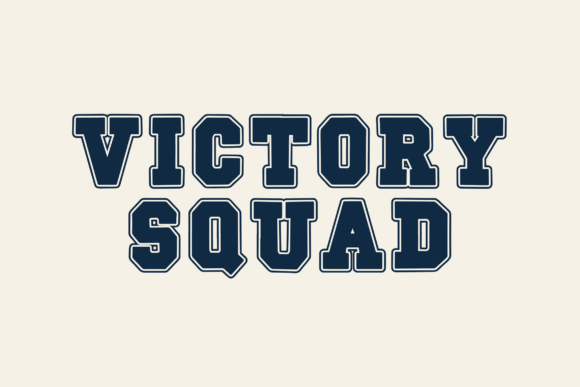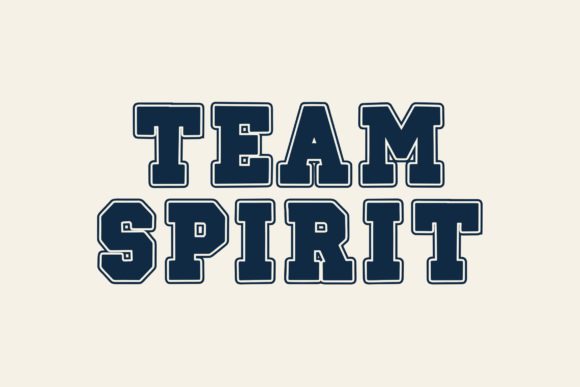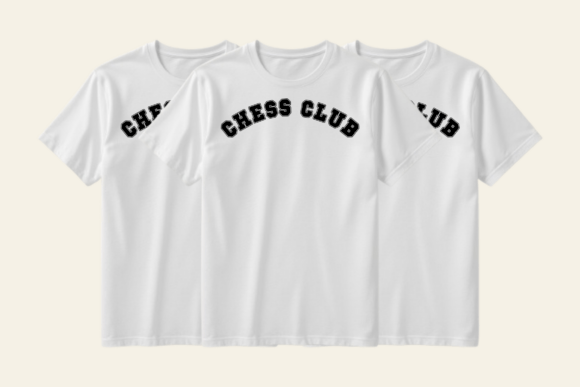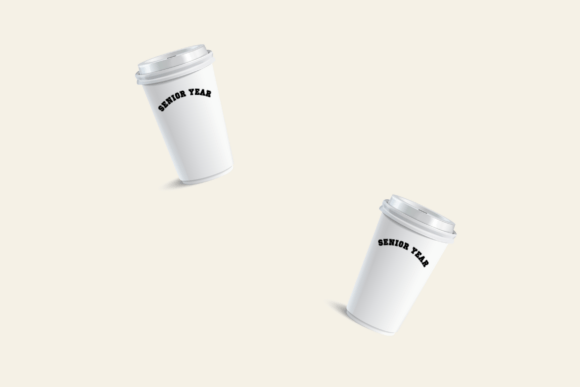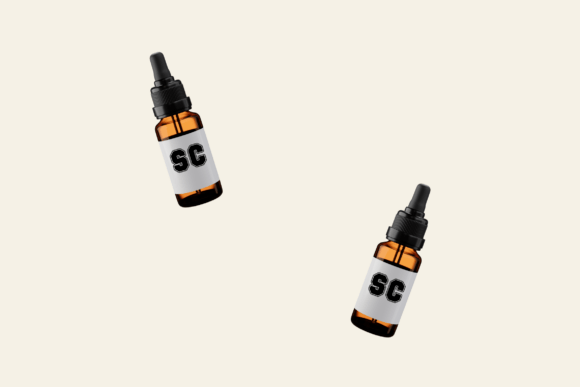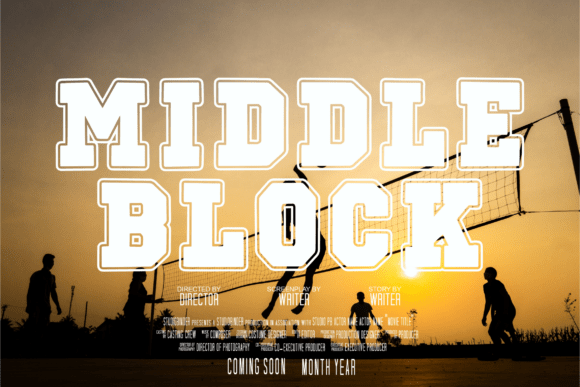
The Power of Blockton Varsity: A Bold and Versatile Font for Designers
I’ll never forget the time I was working on a project for a local school’s sports team, and I was struggling to find the perfect font to capture their energetic and competitive spirit. The client wanted something bold, yet clean and modern, that would work well on everything from team apparel to posters and social media graphics. That’s when I stumbled upon Blockton Varsity, a game-changing font that exceeded my expectations in every way.
An Honest Review of Blockton Varsity
- ✨ **Bold and confident**: Blockton Varsity’s strong block letterforms exude a sense of power and clarity, making it perfect for designs that need to make a statement.
- ✅ **Highly readable**: The letters are thick and balanced, making them easy to read even at small sizes, which is a huge plus for designs that need to work across different mediums.
- 💡 **Versatile**: Blockton Varsity is incredibly versatile, and can be used for everything from school branding to team apparel, posters, logos, packaging, signage, and sporty merchandise.
While Blockton Varsity is an amazing font, there are a few minor quirks to be aware of:
- 🤔 **Limited stylistic options**: While Blockton Varsity has some great OpenType features, it’s not the most customizable font out there. However, its simplicity is also part of its charm.
- ⚠️ **May not work well with very ornate fonts**: Blockton Varsity’s bold and confident style may clash with very ornate or decorative fonts. Stick to pairing it with script or minimalist fonts for the best results.
The Story Behind Blockton Varsity
Blockton Varsity was designed with the goal of creating a bold, confident font that would capture the spirit of school sports teams and collegiate brands. The design team drew inspiration from classic sports typography, combining it with a clean, modern edge to create a font that’s both energetic and highly readable.
| Is Blockton Varsity suitable for small text sizes? | Yes, Blockton Varsity is highly readable even at small sizes, making it suitable for designs that need to work across different mediums. |
| Can I use Blockton Varsity with script fonts? | Yes, Blockton Varsity pairs perfectly with script fonts, creating a bold and elegant contrast that’s perfect for designs that need a touch of sophistication. |